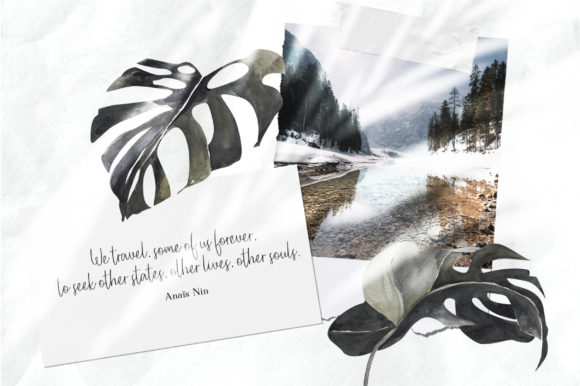
Moonstone Font
db-ku.com - Script & Handwritten -- Moonstone is a stylish and delicate script font. It has a clean, thin and smooth vibe and it will be a hit for any design that you want to add it to.